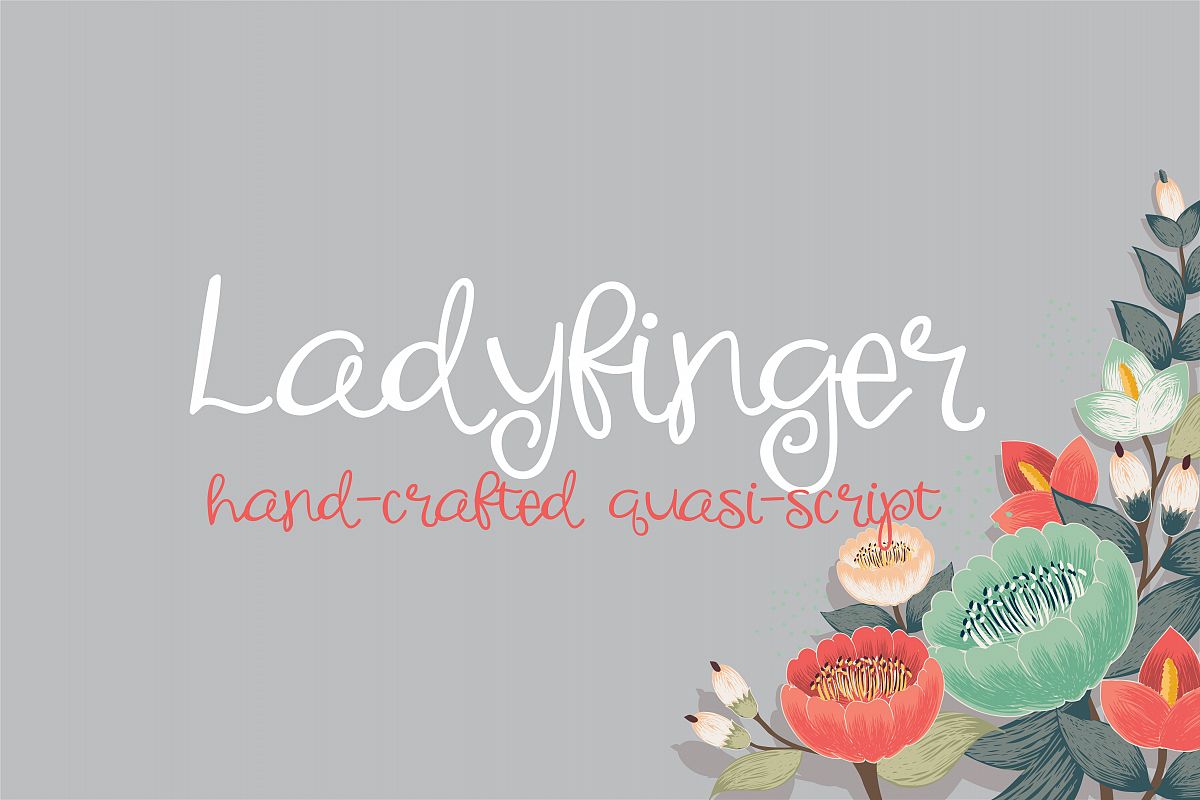
PN Ladyfinger
PN Ladyfinger is a casual quasi-script font...part script, part print. It was hand-printed, scanned and cleaned. It adds a crafty and whimsical touch to any project.